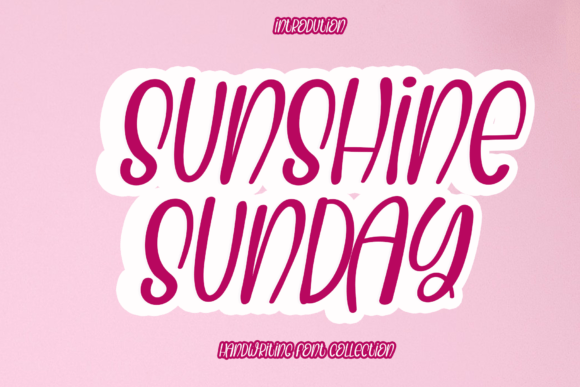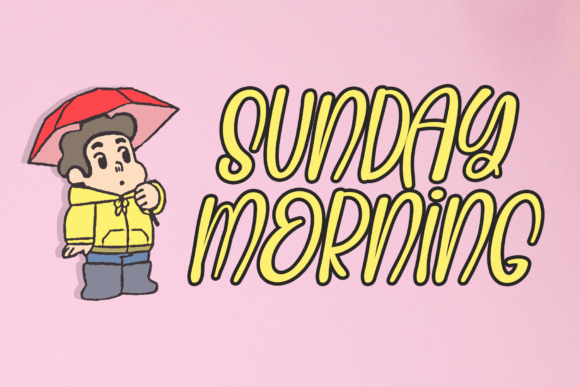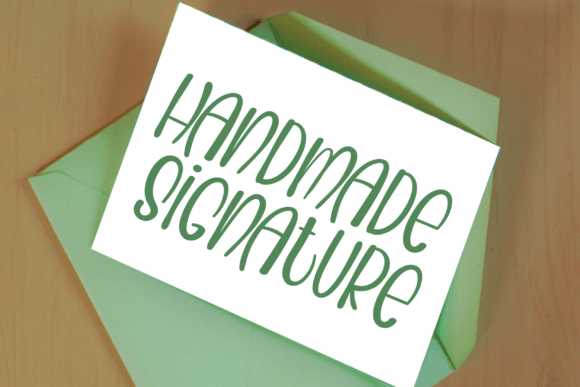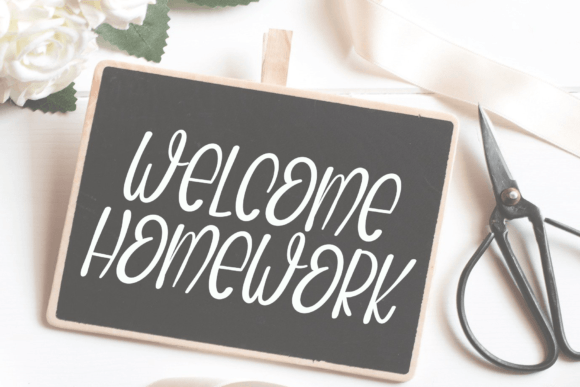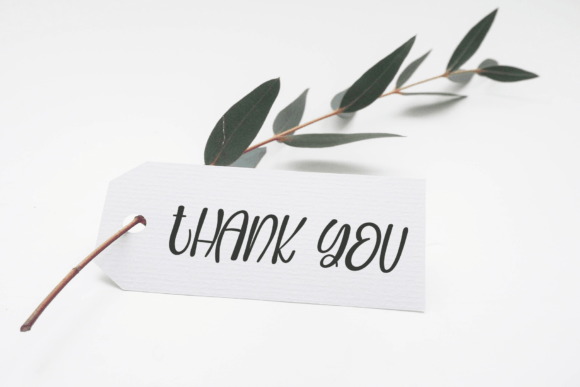
Sunshine Sunday Font
About Sunshine Sunday Font
“Sunshine Sunday” is a superb handwritten font that elevates your work with its elegant and curvy lines. This font is well-suited for a variety of applications, making it perfect for product packaging, branding projects, magazine covers, social media graphics, weddings, and more. Its distinctive features contribute to a stylish and eye-catching aesthetic.
The elegant and curvy lines of Sunshine Sunday bring a sense of grace and sophistication to your text, enhancing its overall visual appeal. Whether you’re creating a brand identity, designing a magazine cover, or crafting social media content, this font is crafted to make your work stand out.
The versatility of Sunshine Sunday is evident in its ability to adapt to different design contexts. From formal wedding materials to more casual social media posts, the font maintains its elegance, making it a reliable choice for a wide range of projects.
In summary, Sunshine Sunday is more than just a font; it’s a design tool that adds a touch of elegance and style to your work. Let Sunshine Sunday be the choice that makes your product packaging, branding, magazine covers, and social media graphics shine with its superb handwritten charm.